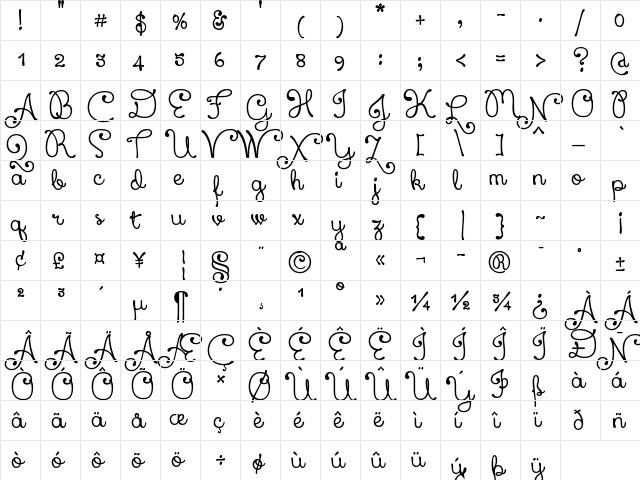
Xiomara Regular
| Foundry | Lauren Thompson |
| Designer | Lauren Thompson |
Design Context for Xiomara Typeface
Xiomara is a composed and adaptable typeface that performs quietly and consistently across a wide range of design contexts.